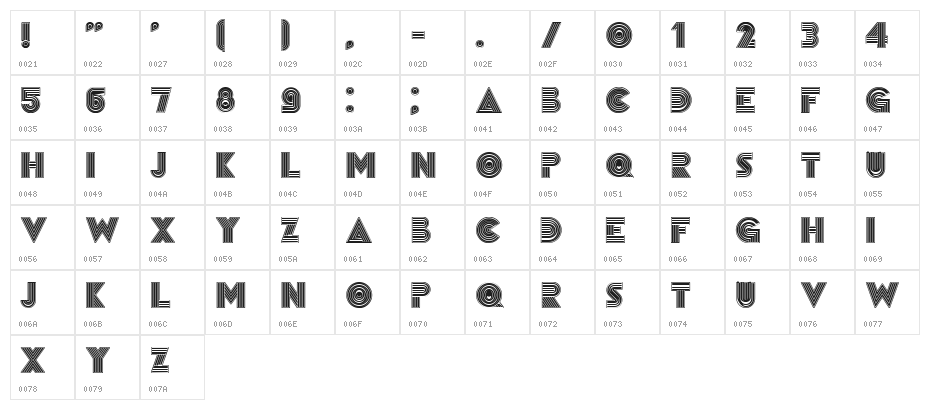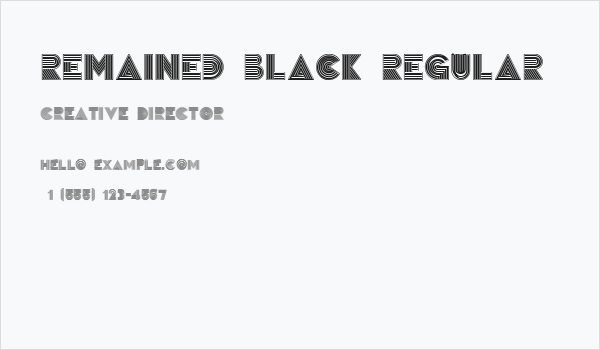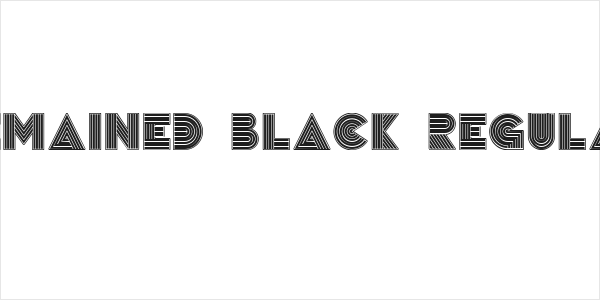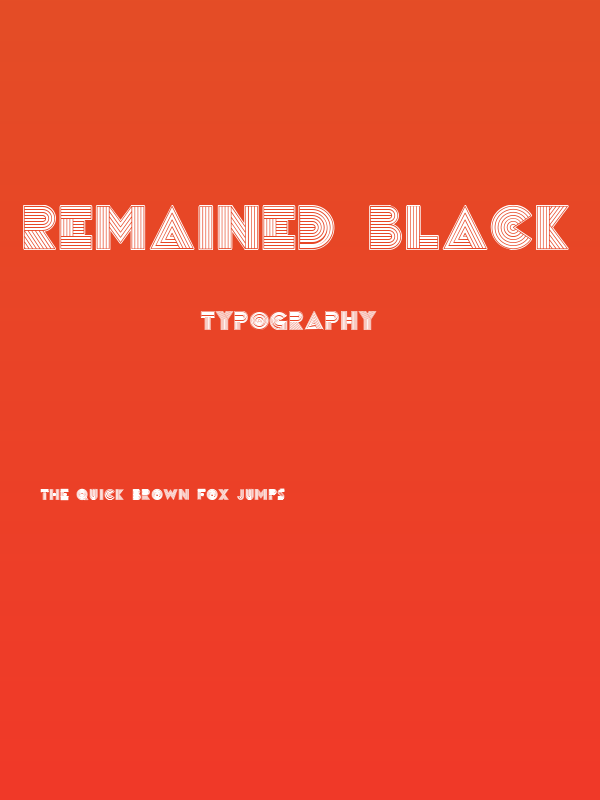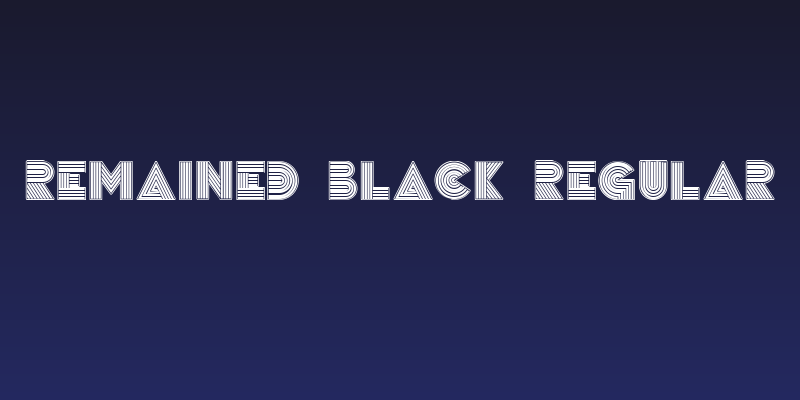
Remained Black Regular Font
Remained Black Regular Description
This font features a bold and striking design characterized by multiple parallel lines forming each letter and number. The geometric structure gives it a modern and futuristic appearance, with a sense of depth and dimension. The uppercase and lowercase letters maintain a consistent style, while the numbers and special characters integrate seamlessly into the overall design. The font's unique style makes it stand out, ideal for projects that require a strong visual impact. Its decorative nature is suitable for creative and artistic applications.
| Proposed Projects | Ideal for posters, logos, album covers, and any design requiring a bold, artistic statement. |